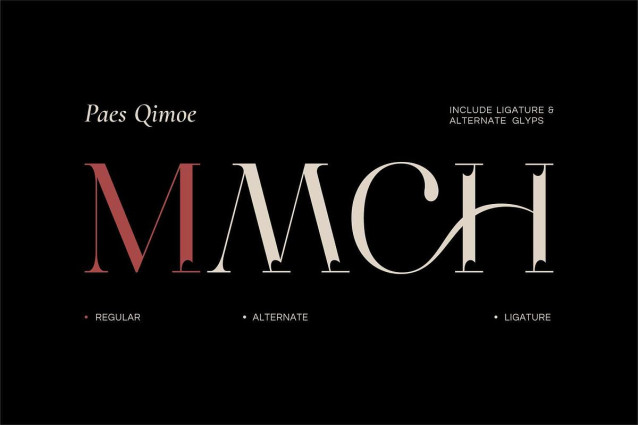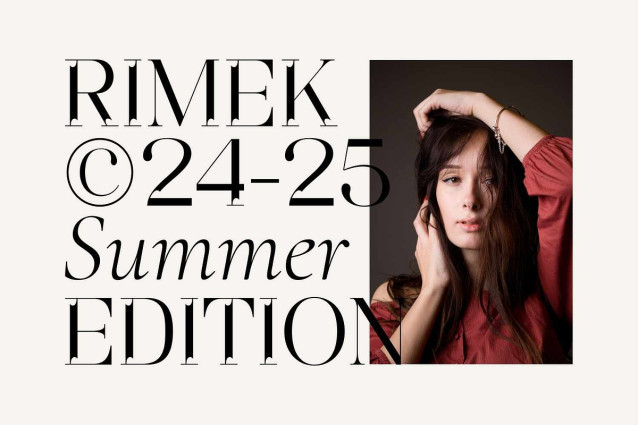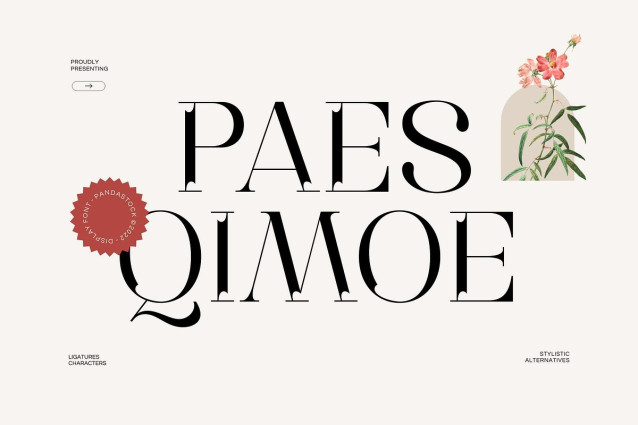
Paes Qimoe Font
Paes Qimoe Font is a modern luxury serif font that blends classical beauty with contemporary flair, graceful curves, and distinctive bracketed serifs, this typeface evokes the elegance of editorial design, fashion magazines, and boutique branding.
Perfect for editorials, luxury branding, fashion magazines, book covers, wedding invitations, packaging, and and any project that needs elegant drama, Paes Qimoe brings a polished aesthetic to both print and digital designs.